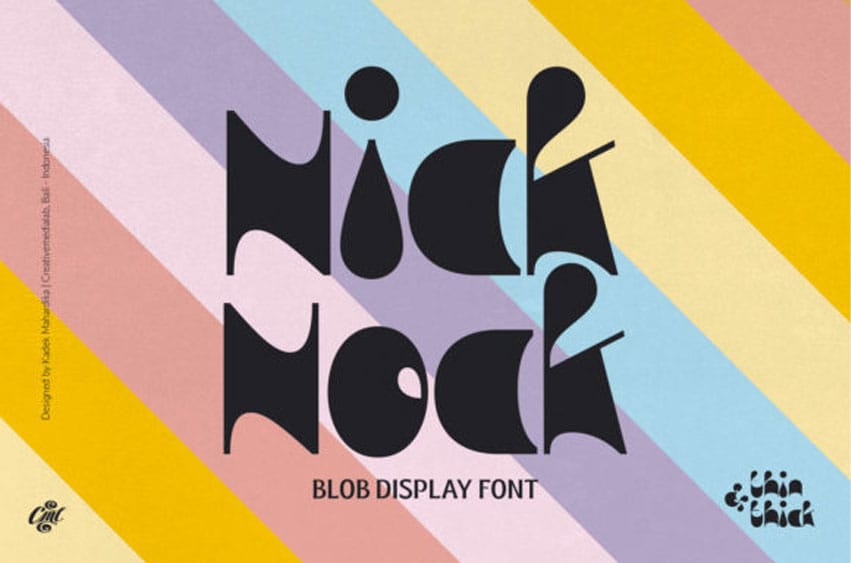
Nick Nock Font is a blob and chunky display font. It comes in 2 styles featuring thin and thick typefaces, truly one of a kind. It is suitable for creative and entertaining design themes.
Nick Nock features a bold design with chunky characters that’s simply ideal for children’s creations such as posters, T-shirts, branding, logo, and greeting cards.